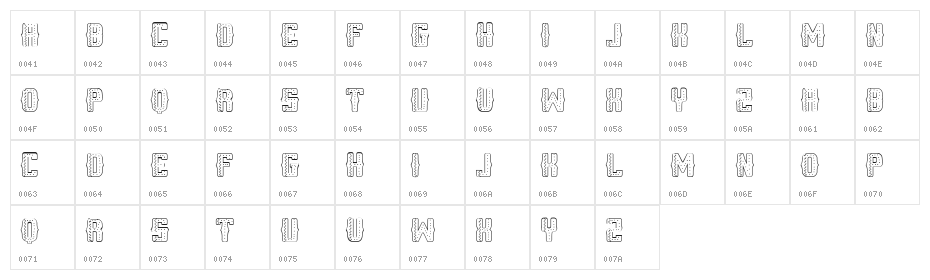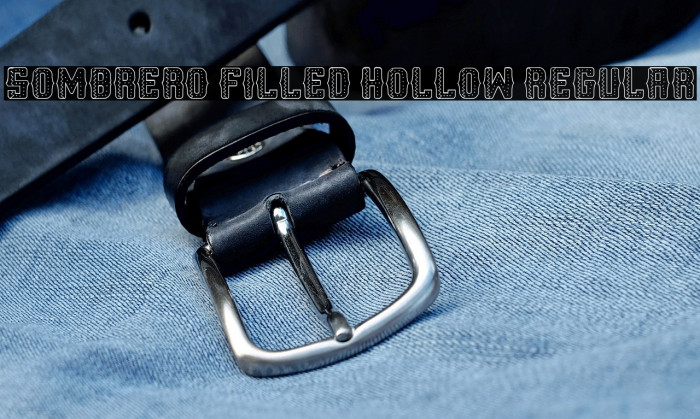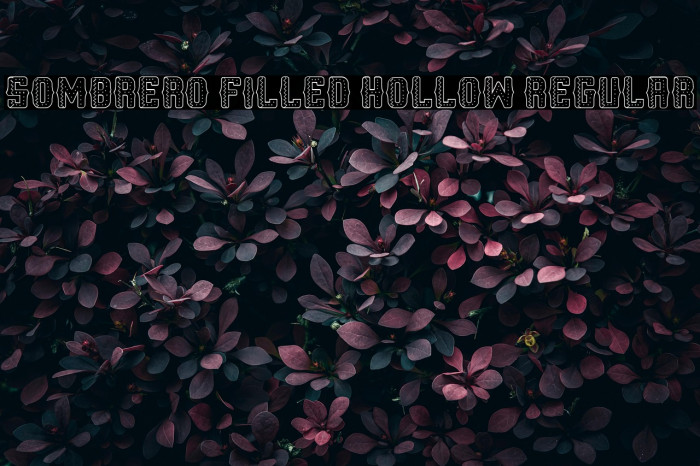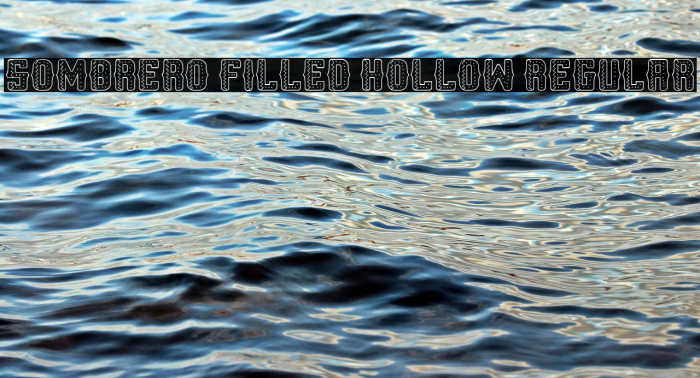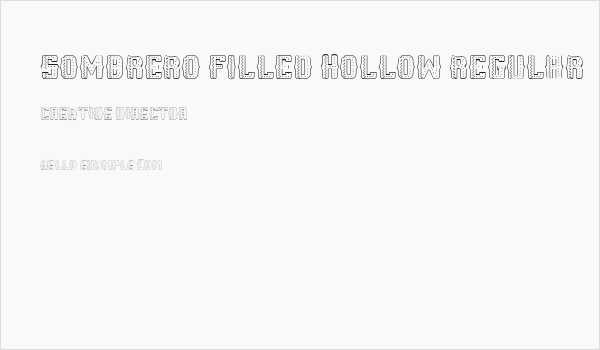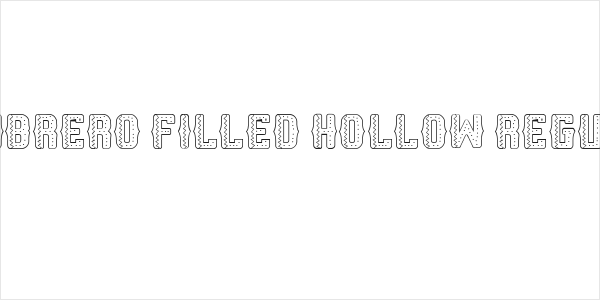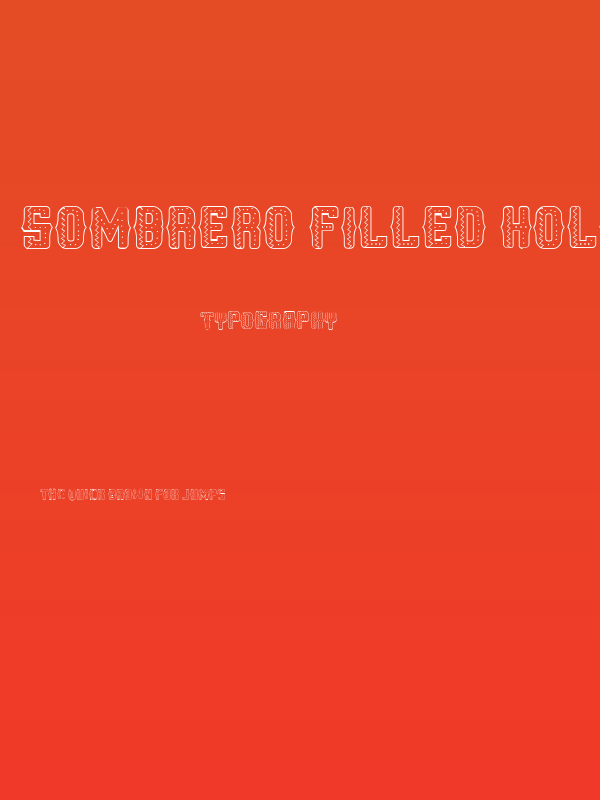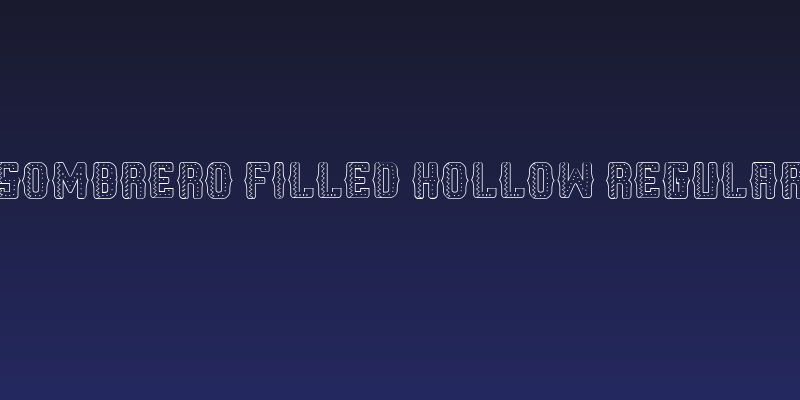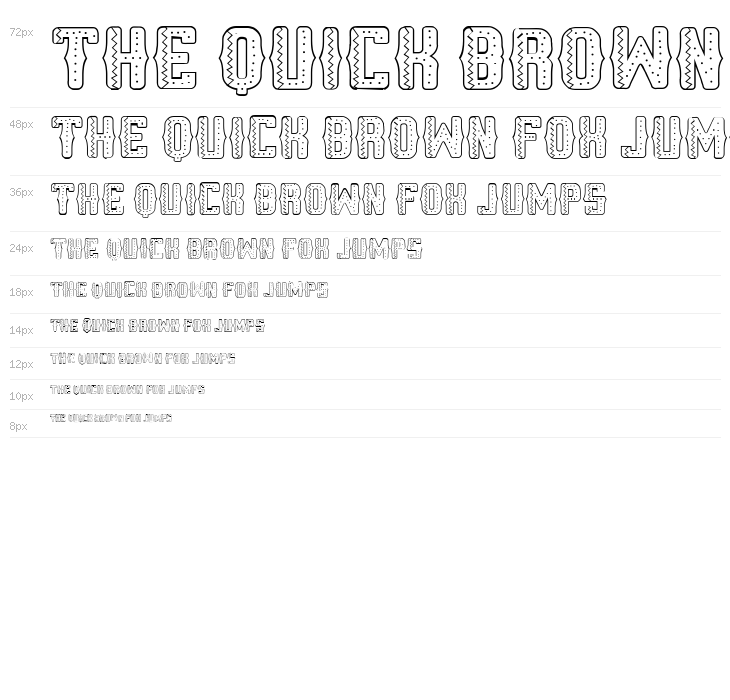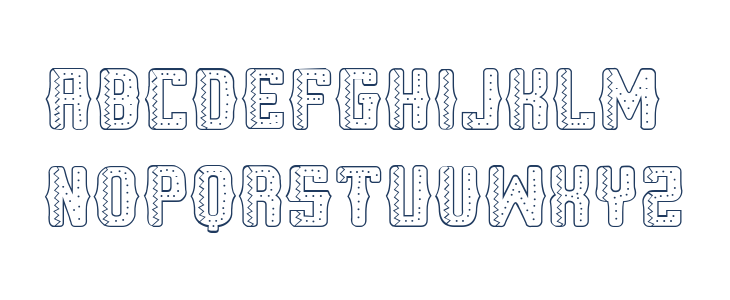
Sombrero Filled Hollow Regular Font
Sombrero Filled Hollow Regular Description
This font features a playful and decorative style, characterized by its hollow, sombrero-inspired design. Each letter is outlined with a bold, consistent stroke, and the interior is filled with intricate patterns that resemble traditional Mexican motifs. The overall appearance is whimsical and eye-catching, making it ideal for projects that require a festive or cultural flair. The uppercase letters are uniform in height, and the spacing between characters is balanced, ensuring readability despite the intricate details.
| Proposed Projects | Ideal for festive event posters, cultural festival branding, themed party invitations, and decorative signage. |